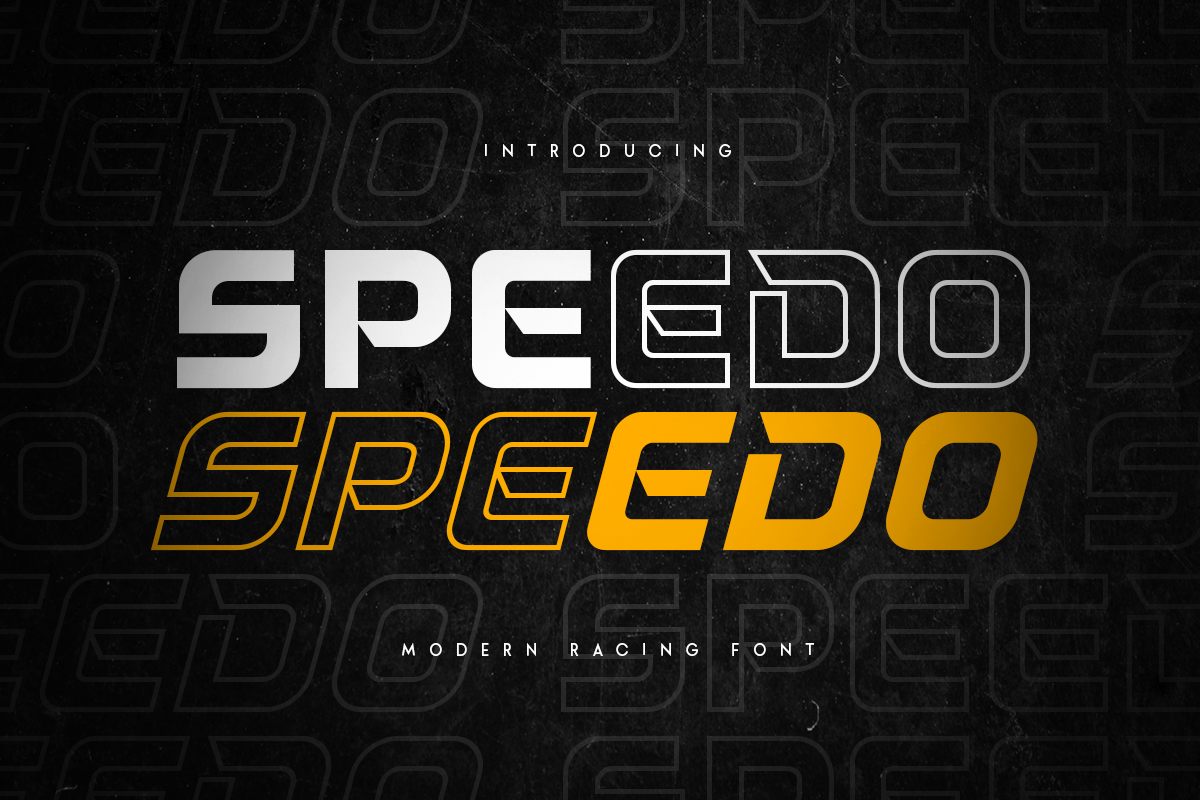
Speedo - Racing Technology Font
Rev up your designs with Speedo - the ultimate racing technology font that merges high-speed thrills with blockbuster aesthetics. Speedo delivers a dynamic and bold typeface that captures the excitement of racing and the drama of action-packed cinema. This sleek, modern font brings together the adrenaline of motorsports with cutting-edge design sensibilities. Speedo Font Features: Futuristic Design: Sleek and modern aesthetic perfect for race car themes and sci-fi projects Versatile Applications...